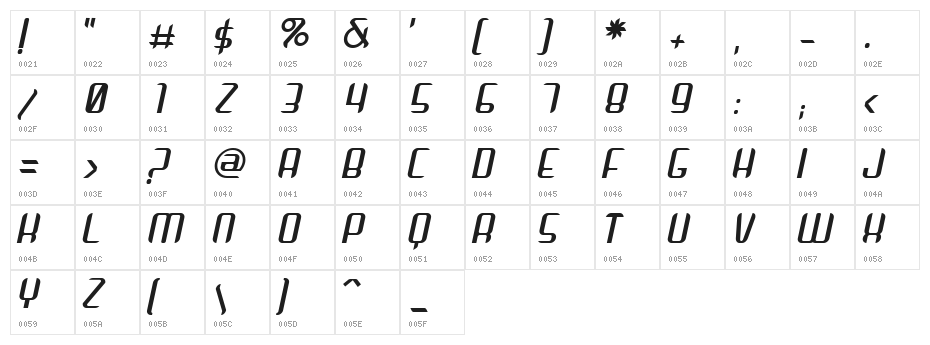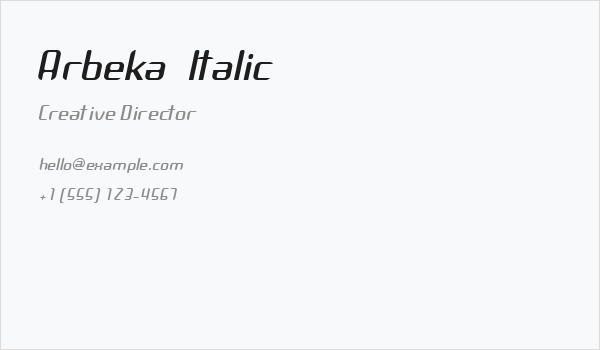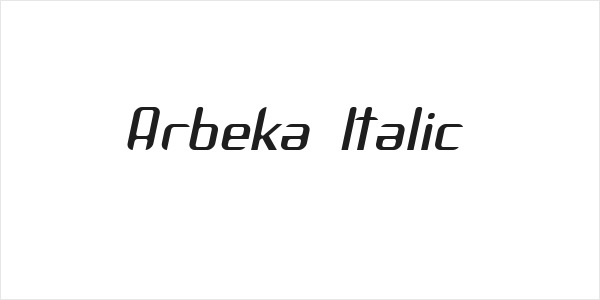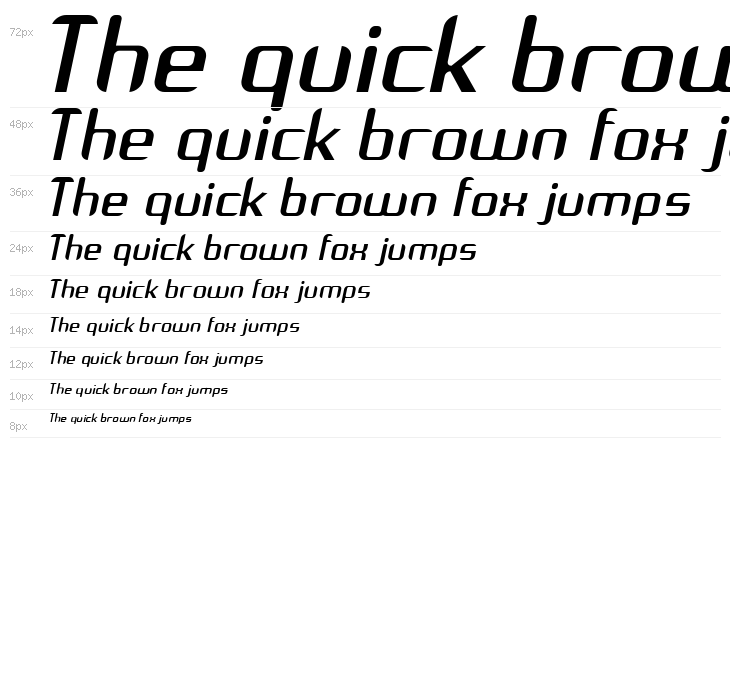
Arbeka Italic Font
Arbeka Italic Description
This font features a sleek, modern design with a slight italic slant, giving it a dynamic and forward-moving appearance. The characters are uniformly styled with rounded edges and consistent stroke widths, creating a harmonious and cohesive look. The uppercase and lowercase letters maintain a similar width, contributing to a balanced and structured aesthetic. The numerals are clear and legible, matching the overall style of the alphabet. Special characters are well-integrated, maintaining the same visual language as the letters and numbers. This font's design is both contemporary and versatile, making it suitable for a variety of applications.
Use CaseHeadlines, Logos, Digital Media
Proposed ProjectsIdeal for branding, advertising, and digital media projects that require a modern and dynamic typeface.